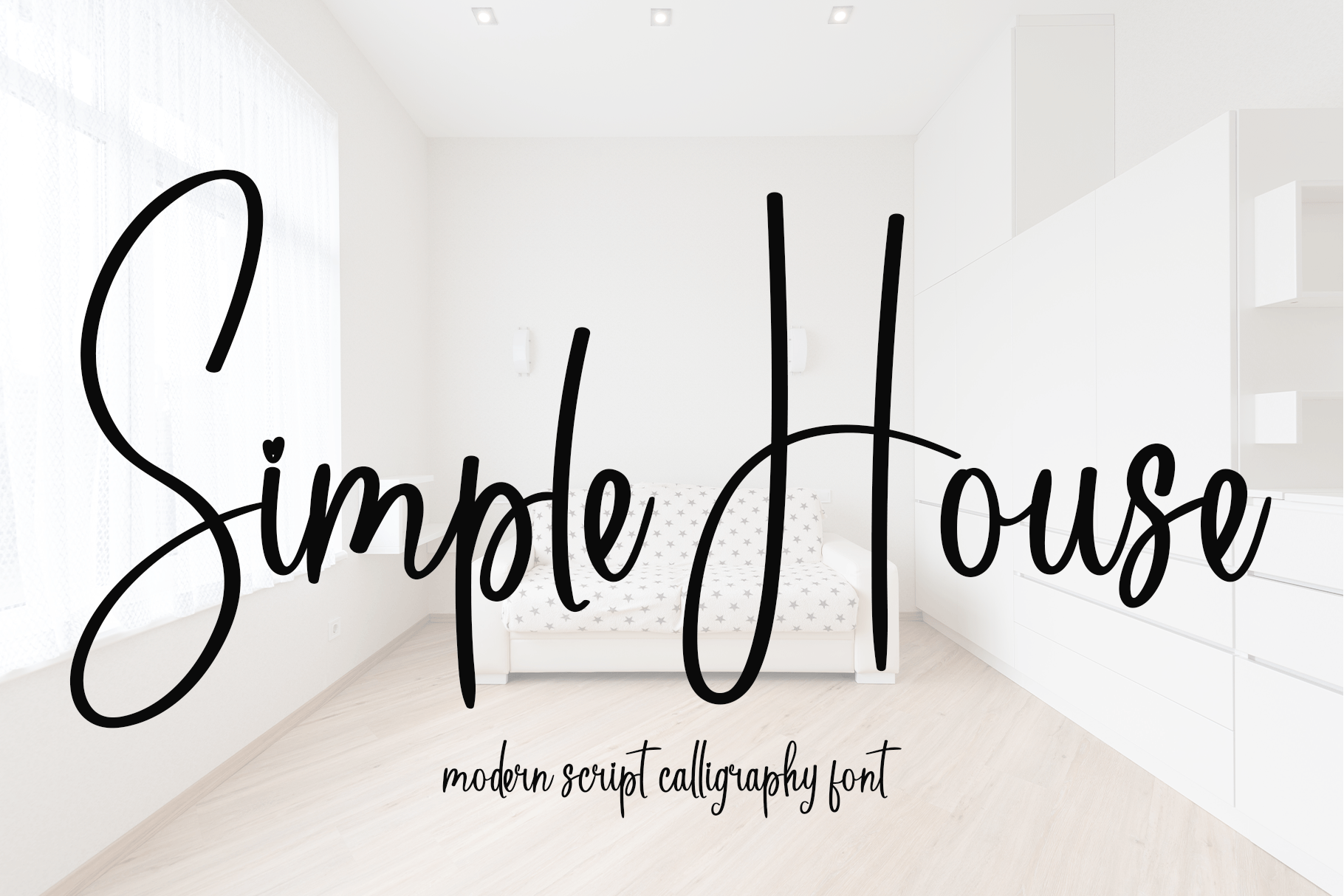
Simple House is a sweet and beautiful handwritten font. Featuring characters that dance along the baseline, this font will add a luxury spark to any design project you wish to create!